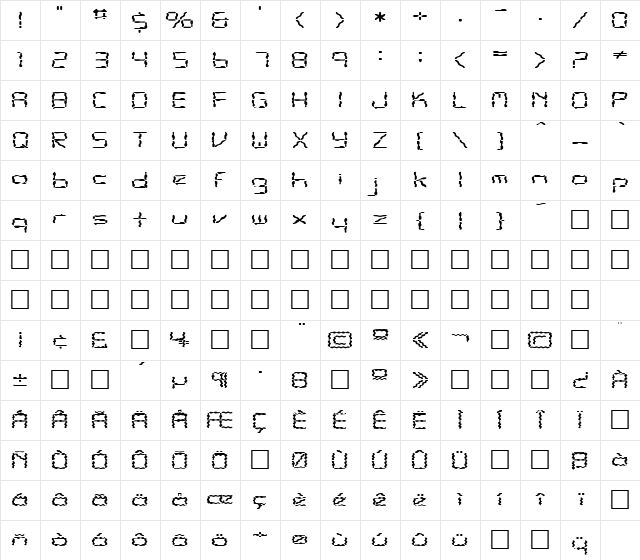
FZ DIGITAL 10 WAVEY EX Normal
Complete FZ DIGITAL 10 WAVEY EX Normal glyph index. Displaying only characters natively supported by FZ DIGITAL 10 WAVEY EX Normal font.
Design Context for FZ DIGITAL 10 WAVEY EX
FZ DIGITAL 10 WAVEY EX has a distinctly futuristic character, with geometric precision and clean angles that feel at home in technology, gaming, and sci-fi contexts.